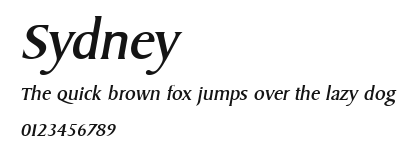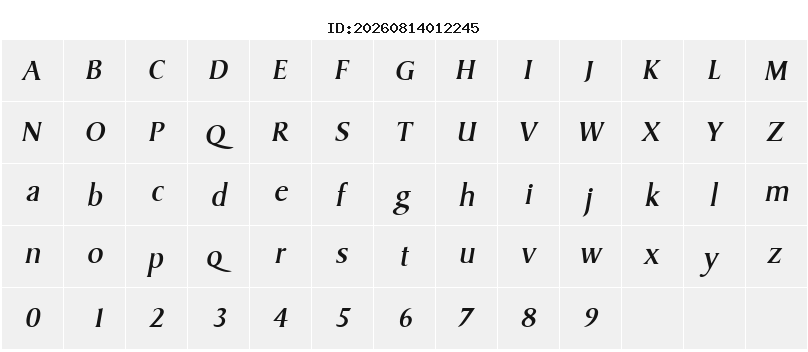
Sydney.ttf is a modern, elegant sans-serif font designed for ultimate readability and visual harmony. Perfect for branding, headlines, web design, and print materials.